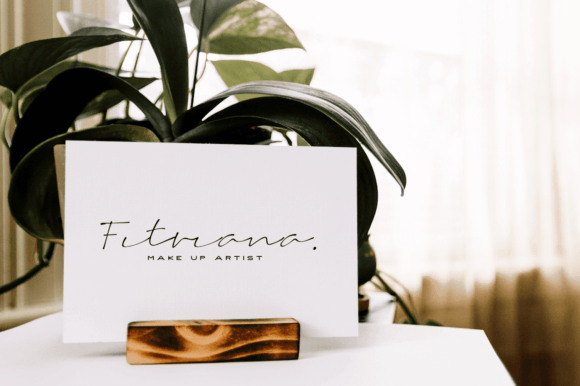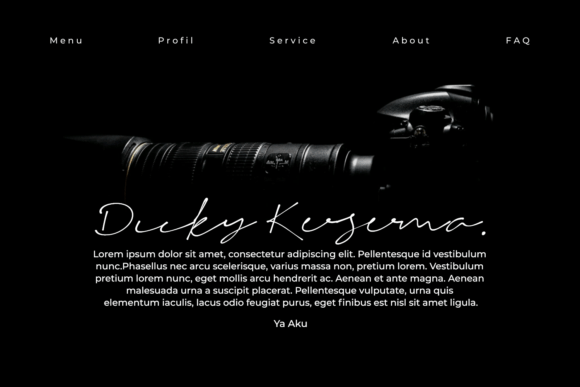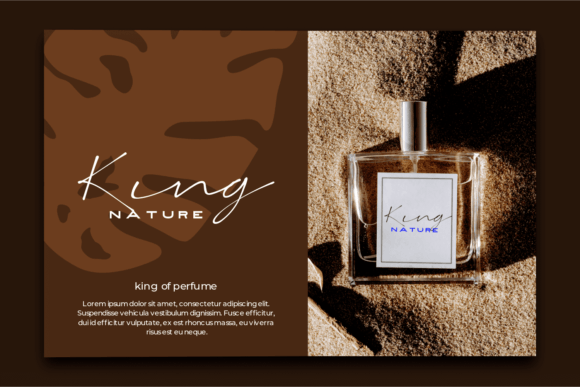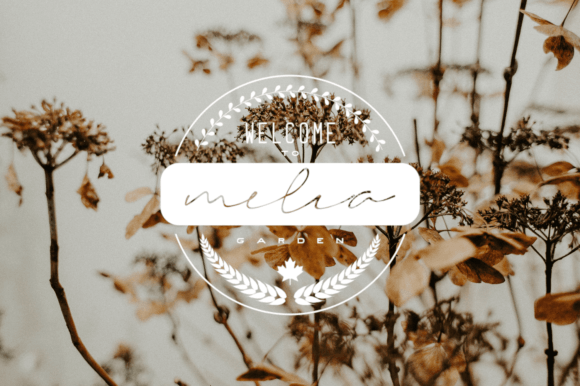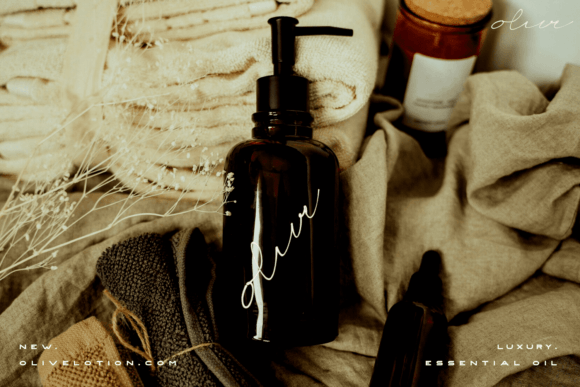
Introducing Amelya Font: Elevate Your Designs with Elegance and Sophistication
In the world of typography, fonts play a crucial role in conveying the tone and personality of a design. For designers and crafters seeking to add a touch of elegance and sophistication to their work, Amelya Font is an exceptional choice. This stylish and incredibly elegant script font is perfect for a variety of applications, from wedding invitations and thank you cards to quotes, greeting cards, logos, business cards, and more.
The Beauty of Amelya Font
Amelya Font boasts a unique and captivating aesthetic that instantly elevates any design. Its flowing script style, characterized by delicate connections and subtle variations in line width, exudes a sense of refinement and luxury. The font’s elegant appearance makes it an ideal choice for designs that require a personal and sophisticated touch.
One of the standout features of Amelya Font is its versatility. Whether you’re working on a wedding invitation, a logo, or a social media graphic, this font adapts seamlessly to various design contexts. Its legibility and aesthetic appeal ensure that it complements a wide range of design elements, from simple and minimalist to elaborate and ornate.
For those in the wedding and event planning industry, Amelya Font is a game-changer. Its romantic and sophisticated feel makes it perfect for wedding invitations, save-the-date cards, and other event-related materials. The font’s ability to convey emotion and elegance will leave a lasting impression on your clients and their guests.
Enhance Your Brand with Amelya Font
Businesses looking to establish a strong brand identity can also benefit from using Amelya Font. Its unique and stylish appearance can help create a memorable visual identity that sets your brand apart from the competition. Use Amelya Font on your business cards, letterheads, and marketing materials to convey a sense of professionalism and sophistication.
Tips for Using Amelya Font Effectively
- Pair with complementary fonts: Combine Amelya Font with sans-serif or serif fonts to create a harmonious contrast that enhances readability and visual appeal.
- Experiment with colors: Amelya Font looks stunning in a range of colors, from classic black and white to metallic and pastel shades.
- Pay attention to spacing: Adjust the letter spacing and line height to ensure optimal readability and aesthetic balance.
Where to Use Amelya Font
The possibilities are endless when it comes to using Amelya Font. Here are some ideas to get you started:
- Quotes and inspirational posters
- Social media graphics and blog headers
Amelya Font is a versatile and elegant script font that can elevate any design with its sophisticated and refined appearance. Whether you’re a designer, crafter, or business owner, this font is sure to become a valuable addition to your typography arsenal. With its wide range of applications and ease of use, Amelya Font is the perfect choice for anyone seeking to add a touch of elegance and sophistication to their work.